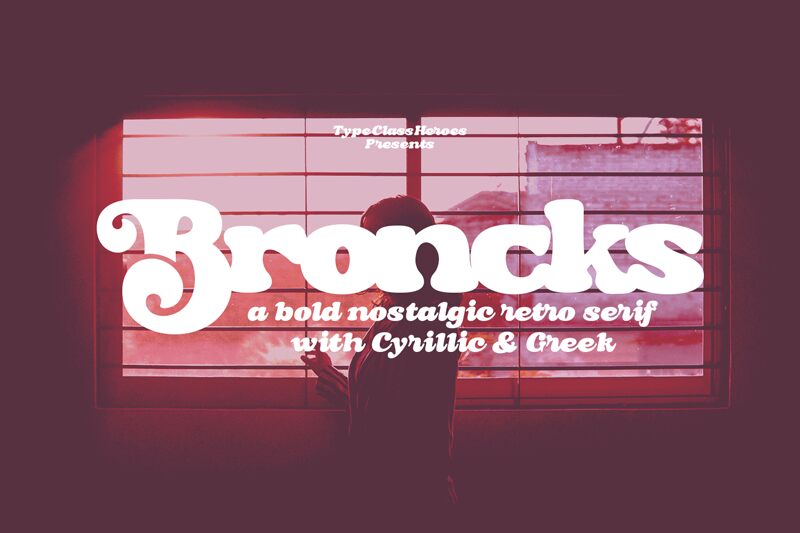
Broncks font by TypeClassHeroes is a free serif display typeface inspired by the past decades. With vintage at its core, it captures all the pleasant memories of the 80s and the 90s and seeks to bring the feeling back to our designs. The drawings include all respectable characteristics of retro fonts, featuring in particular, decorative letters, each of which has its own character and personality.
Broncks is the perfect display typeface to convey authenticity and character in your designs. Whether you are working on a logo, a poster, packaging design, social media images, or magazine and book covers, you will enjoy a bold unique typeface that is fun to play with. A number of features can enhance its appearance including coloring and blending it with a proper background.